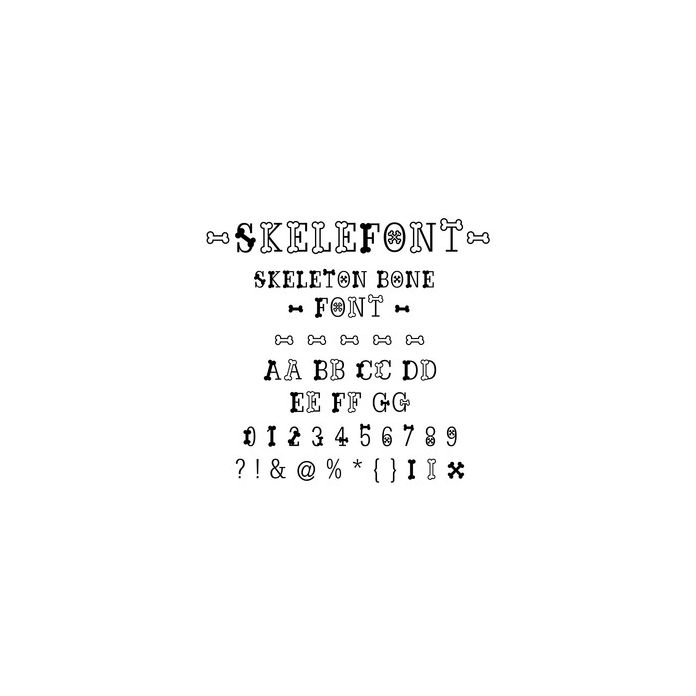
Skelefont - Skeleton bones Halloween Font. Hand drawn font, including two variations of upper case letters, numbers and glyphs. For more design ideas, coordinating designs & products and inspiration, please visit my blog http://www.sarahhurleyblog.com